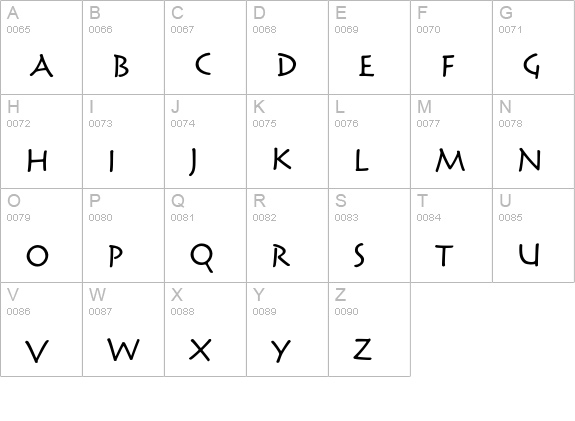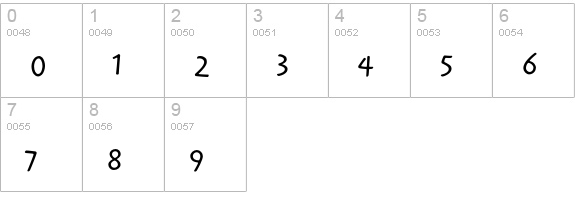
Reliq Std Active is a remarkable font that exudes a sense of energy and vitality. With its bold strokes and dynamic angles, this font captures the essence of movement and action. It is perfect for projects that require a strong and impactful visual presence. Designed with versatility in mind, Reliq Std Active can be used in various contexts, from advertising and branding to editorial design and packaging. Its clean and modern look ensures readability and legibility, even at smaller sizes. What makes Reliq Std Active even more appealing is that it is free! Yes, you read that right. This incredible font is freely available to download at FontsMarket.com. Now you can elevate your designs without breaking the bank. Whether you are a professional graphic designer or a passionate hobbyist, this font is a valuable addition to your typographic arsenal. So why wait? Embrace the power and dynamism of Reliq Std Active today. Download it for free at FontsMarket.com and unleash your creativity like never before.